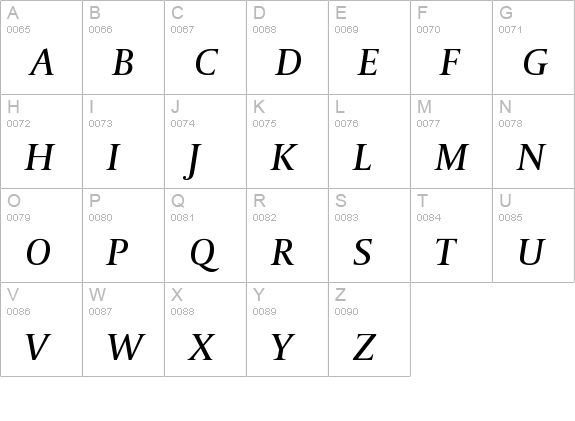
DTLParadoxT-MediumItalic Font Details
The DTLParadoxT-MediumItalic font exudes a perfect balance of elegance and modernity with its sleek italic design. Its unique style captures attention and adds a touch of sophistication to any project it is used in. The flowing curves and precise angles of each letter create a harmonious visual rhythm that is both striking and versatile. This font is a must-have for designers looking to make a bold statement while maintaining a sense of refinement. Whether used for headlines, logos, or body text, DTLParadoxT-MediumItalic offers a distinctive flair that sets it apart from the ordinary. Best of all, this exceptional font is available for free download at FontsMarket.com, making it easily accessible to anyone looking to elevate their design projects with a touch of modern elegance. Don't miss out on the opportunity to enhance your work with the timeless appeal of DTLParadoxT-MediumItalic.